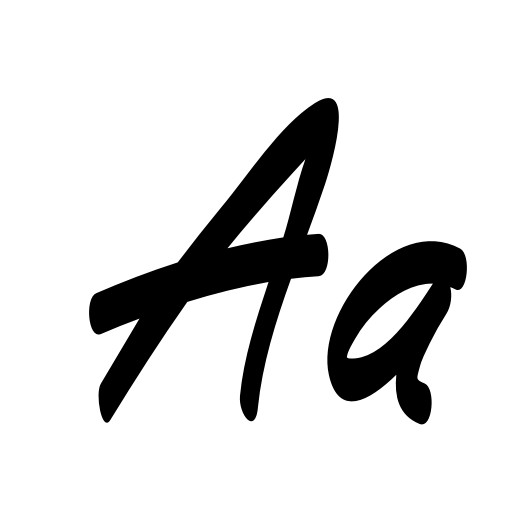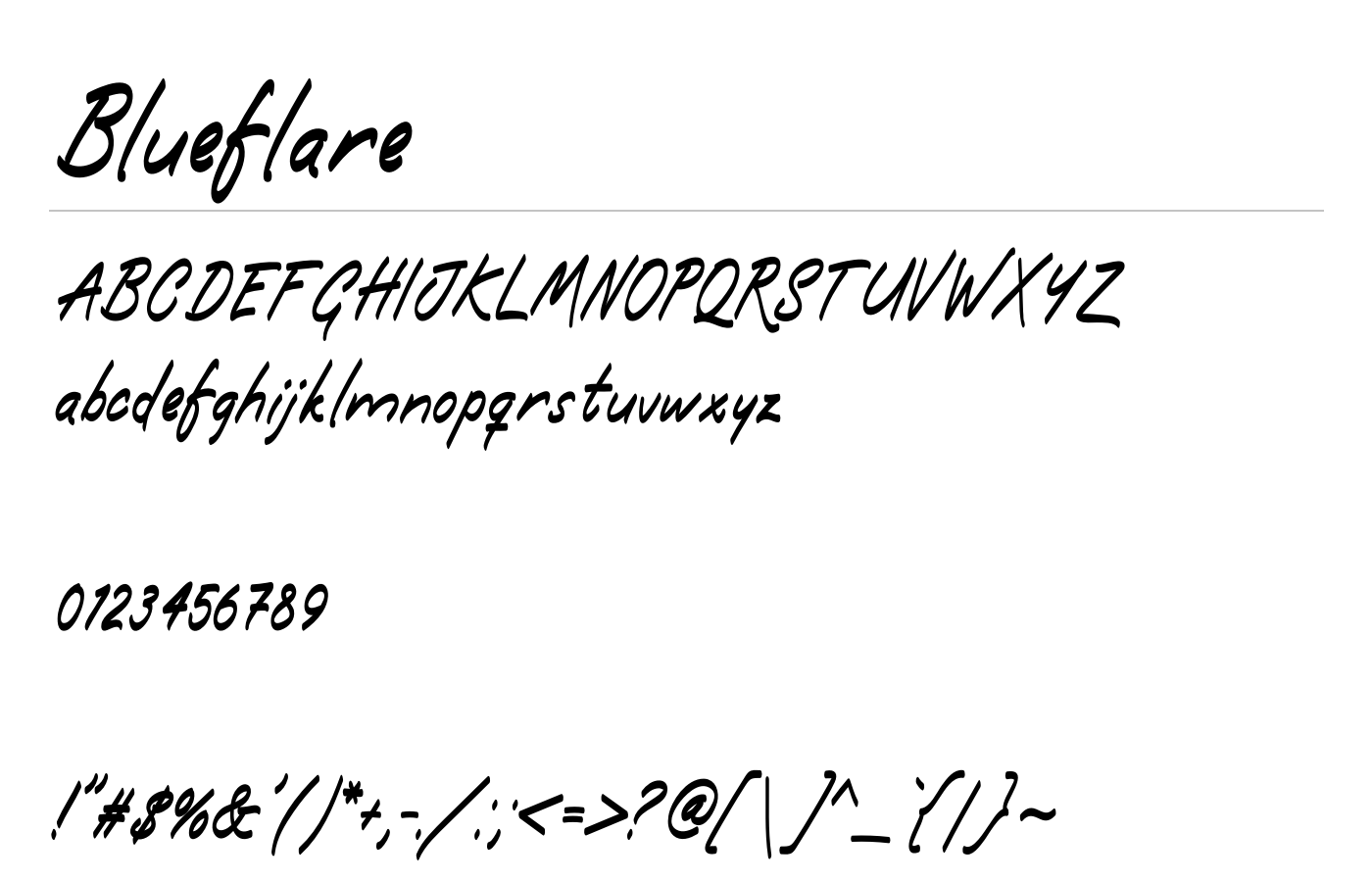
Blueflare is a lively, casual script font with a handwritten feel characterized by smooth, slightly angled strokes and a medium weight that offers good readability. Its playful yet refined style makes it suitable for creative projects like invitations, branding with a personal touch, and dynamic headlines, where a friendly and approachable tone is desired. This font’s informal elegance adds a human, artistic vibe that stands out in both print and digital uses.
Blueflare Font
About Blueflare Font
| Font family | Blueflare Font |
| Designer | Chrisna Tri Hartadi |